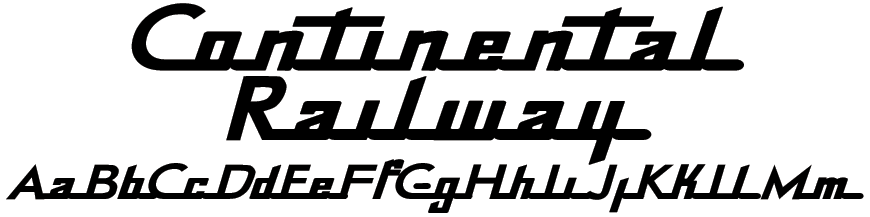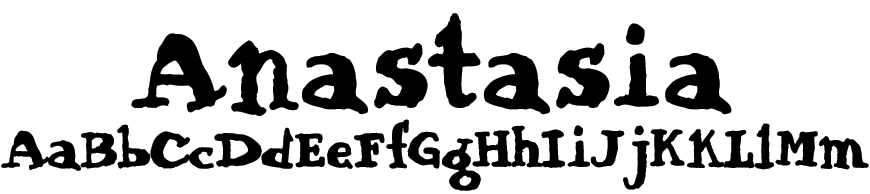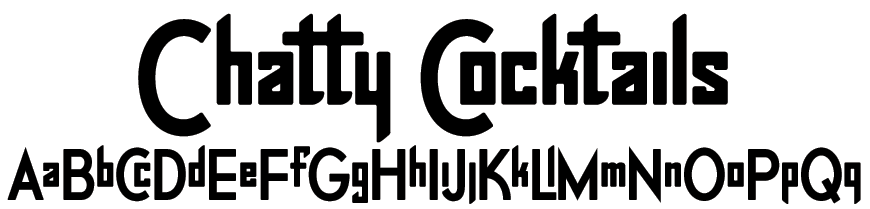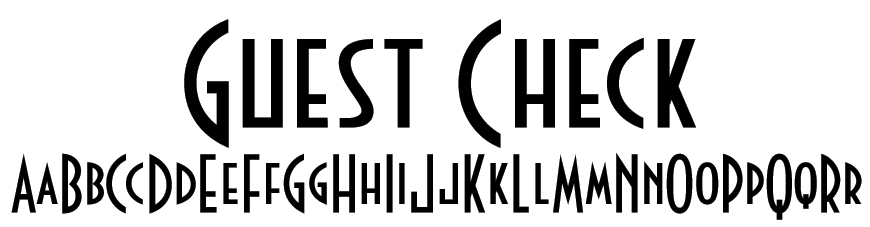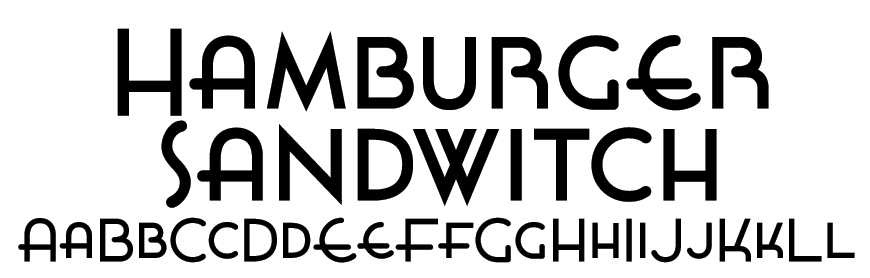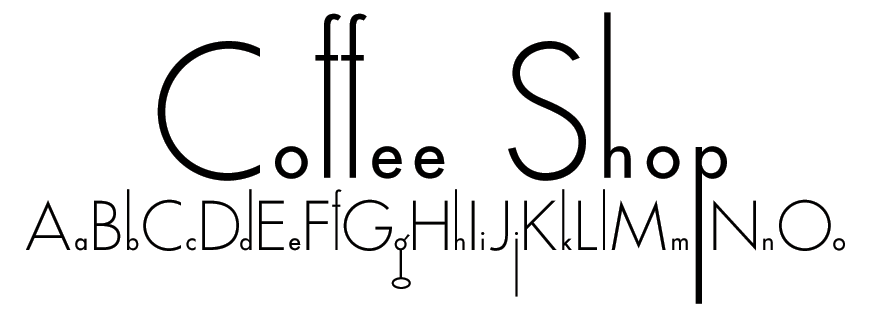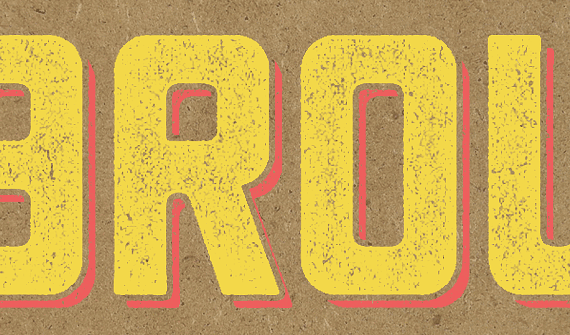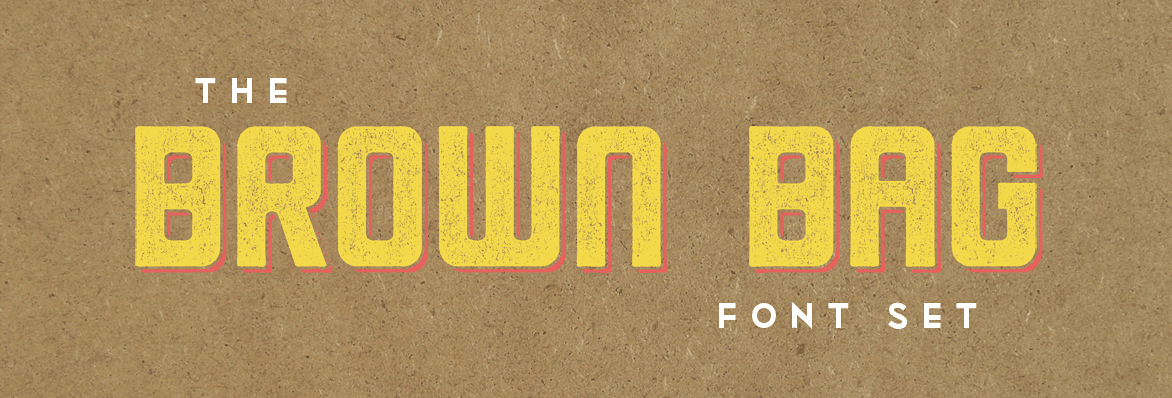
Sack yourself a Brown Bag Font Set! This 1940s inspired Art Deco font collection contains slick moderne font styles, playful display fonts and a host of streamline inspired fonts!
Brown Bag Font Set